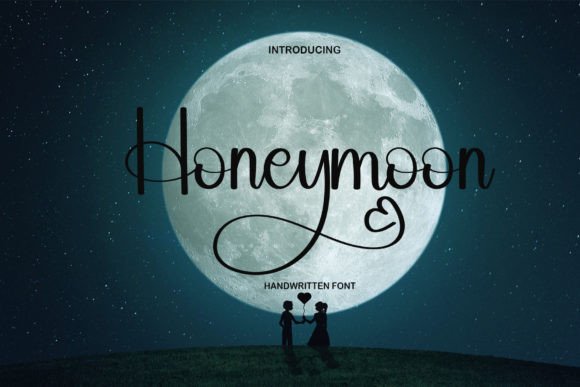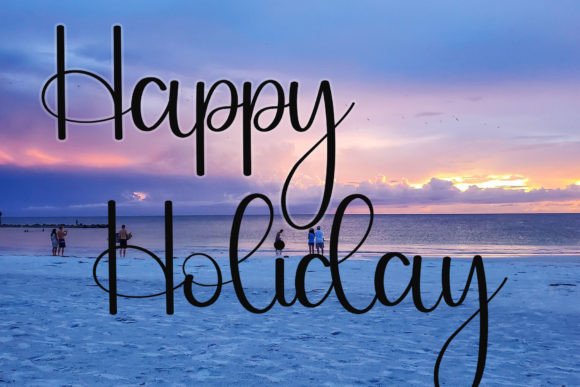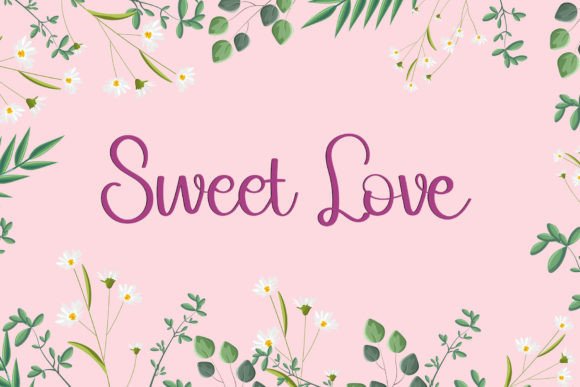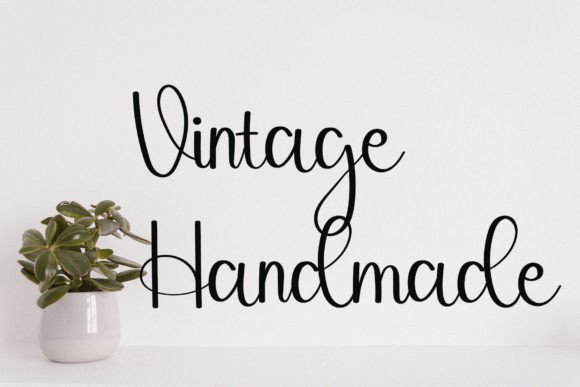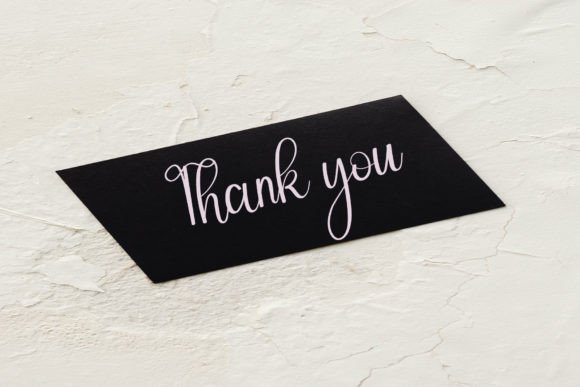
Honeymoon Font
About Honeymoon Font
The Honeymoon Font Download is a sweet and romantic handwritten script designed to add charm, elegance, and warmth to your creative projects. With its graceful strokes and natural handwritten flow, Honeymoon captures the essence of romance, making it ideal for designs that require a personal and heartfelt touch.
Crafted with versatility in mind, this typeface blends sophistication with usability, ensuring it works beautifully across a wide variety of contexts. Whether you’re designing wedding invitations, stationery, social media graphics, or product packaging, Honeymoon provides a polished yet intimate feel that elevates your projects.
Features of Honeymoon Font
When you download the Honeymoon Font, you’ll gain access to features that make it stand out:
• Sweet and romantic handwritten script style
• Elegant strokes and balanced letterforms for timeless appeal
• Complete character set including uppercase, lowercase, numerals, and punctuation
• Smooth readability across both print and digital applications
• Versatility for personal, professional, and creative use
Best Uses for Honeymoon Font
The Honeymoon Font Download can enhance a wide range of creative applications, including:
• Wedding invitations and stationery – Add romance and charm to your special day
• Greeting cards and thank-you notes – Create heartfelt, stylish messages
• Logos and branding – Perfect for boutiques, lifestyle businesses, or artisan brands
• Product packaging – Elegant labels for cosmetics, handmade goods, or gourmet products
• Social media graphics – Create eye-catching Instagram posts and Pinterest pins
• Quotes and wall art – Turn meaningful words into beautiful displays
• Event posters and promotions – Add a romantic handwritten touch to special occasions
Why Choose Honeymoon Font
The Honeymoon Font Download stands out because it combines romantic handwritten beauty with modern readability. Unlike fonts that are either overly ornate or too minimal, Honeymoon delivers graceful elegance while remaining versatile and easy to use.
Designers love Honeymoon for its timeless charm and adaptability. Its handwritten flow makes it ideal for wedding and event stationery, while its stylish strokes ensure it works well for branding and social media. This combination of beauty and usability makes Honeymoon a must-have in any designer’s collection.
The Honeymoon Font Download is a sweet, romantic handwritten script that adds elegance and personality to your projects. With its graceful strokes, versatile applications, and polished design, it’s the perfect choice for invitations, logos, packaging, social media graphics, and more.